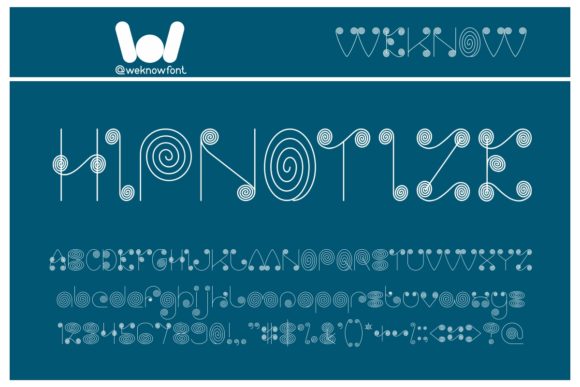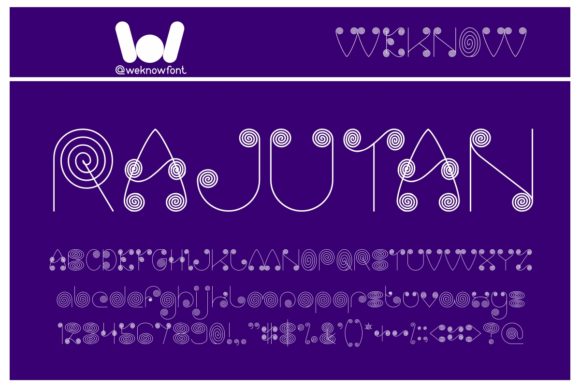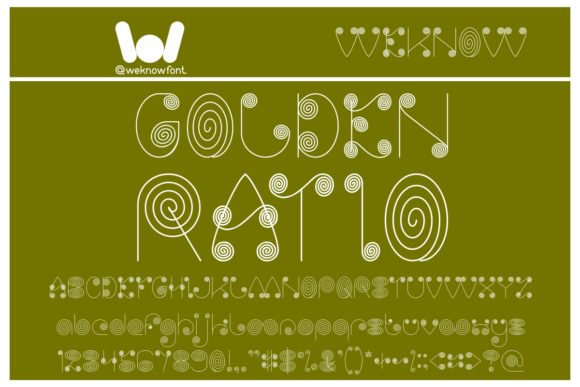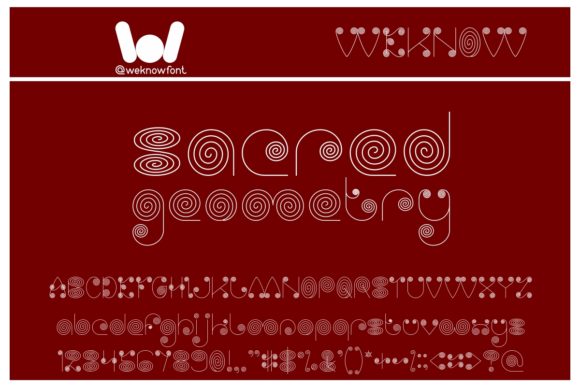
Introduction to Self Region Font
Do you ever get that spark of creativity when browsing through design resources? Maybe it’s the perfect font to elevate your latest design project, or a background image that adds a touch of magic to your layout. For designers, finding the right assets can make all the difference between a good design and a great one. Recently, I stumbled upon the Self Region Font, and I just had to share it with you.
This quirky display font is sure to add some personality to your design, whether it’s for a free download or a high-quality design project. With its unique style, it’s incredibly versatile and can be used in a wide range of contexts. Plus, with a transparent background, you can easily customize it to fit your design needs.
As a valuable design resource, the Self Region Font is definitely worth checking out. Whether you’re working on a creative project or just looking for some inspiration, this font is sure to spark some ideas and help you take your design to the next level.
Key Features of Self Region Font
- High Quality Design: Self Region Font is a meticulously crafted font designed to meet the demands of creative projects, ensuring a visually appealing and professional look.
- Transparent Background: The font’s transparent background allows for seamless integration with various design elements, making it an ideal choice for graphic designers and digital artists.
- High Resolution: Self Region Font is designed at a high resolution of 300 DPI, making it suitable for print and digital applications.
- Unique Characteristics: The font’s unique characteristics, such as its bold and modern design, set it apart from other fonts in the market, making it an excellent choice for creative projects.
- Perfect for Digital Projects: Self Region Font is specifically designed for digital projects, including websites, social media, and mobile applications, making it an excellent choice for designers working on these types of projects.
Honest Review: Self Region Font
As a designer, I’m always on the lookout for high-quality design resources that can elevate my creative projects. The Self Region Font is one such resource that caught my attention, and I’m excited to share my honest review with you.
- ✨ The font has a beautiful, unique design that’s perfect for projects that require a touch of elegance and sophistication.
- ✨ The transparent background makes it easy to integrate into any design, without worrying about distracting backgrounds.
- ⚠️ The font family is relatively small, so you may need to adjust the font size to achieve the desired effect.
- ⚠️ Some users may find the font’s unique design to be overwhelming or difficult to read, especially in large blocks of text.
Overall, I’m impressed with the Self Region Font. It’s a great addition to any designer’s toolkit, and I’d definitely recommend it for creative projects that require a touch of sophistication. Just be aware of the potential limitations, and use it judiciously to get the best results.
Tips for Getting the Most Out of the Self Region Font
To get the most out of the Self Region Font, use it in conjunction with a transparent background to create a clean and modern design. Experiment with different font sizes and colors to add visual interest to your project.
The Self Region Font is perfect for a variety of creative projects, including branding, marketing materials, and digital products. Its high-quality design and transparent background make it a versatile resource for designers and non-designers alike.